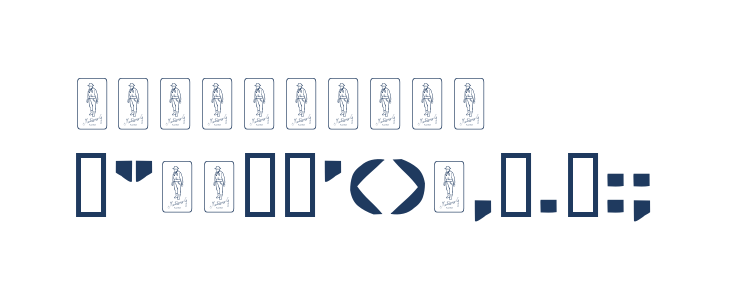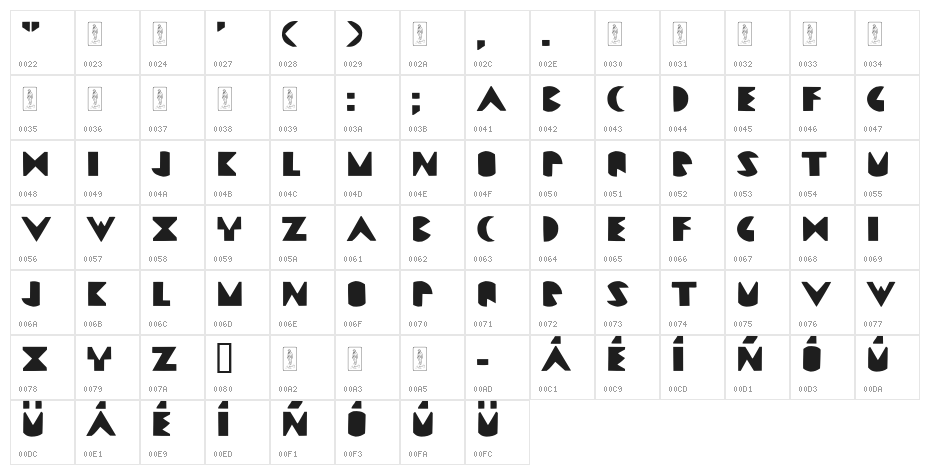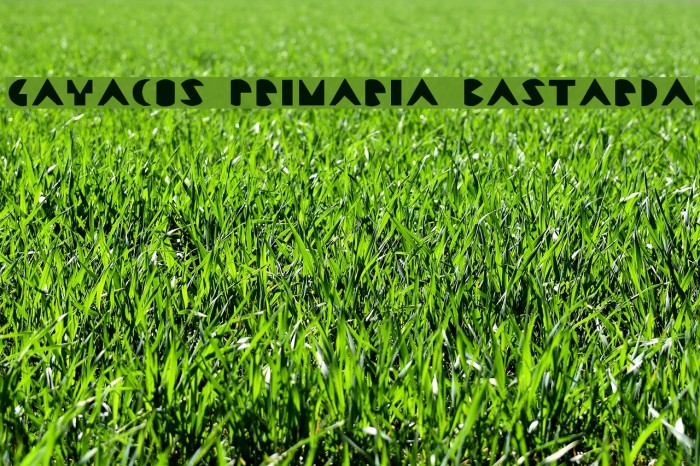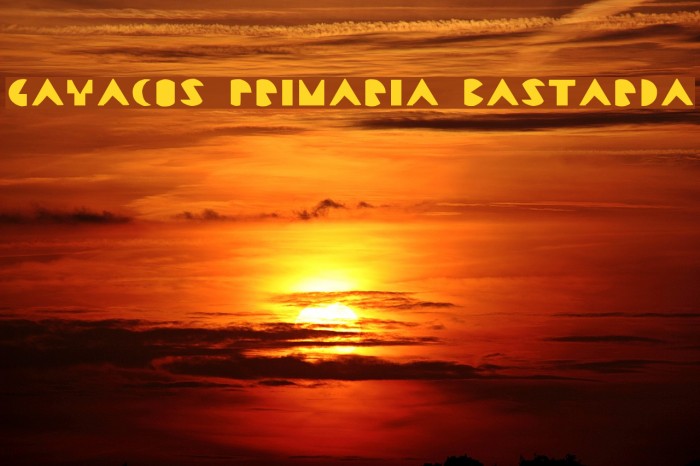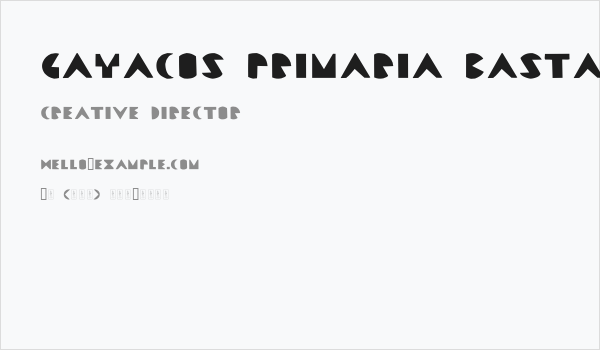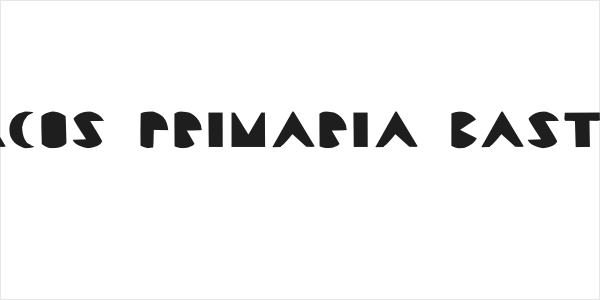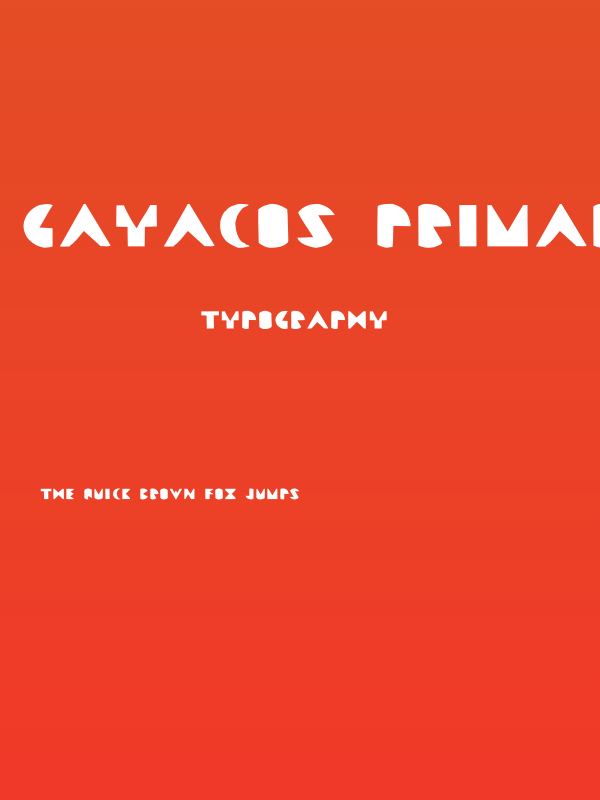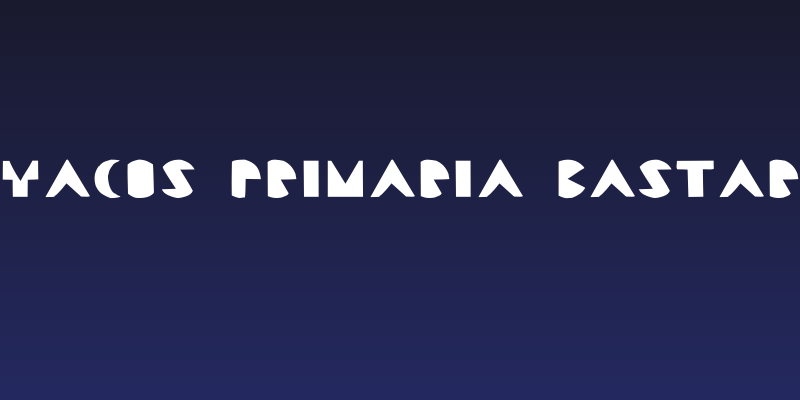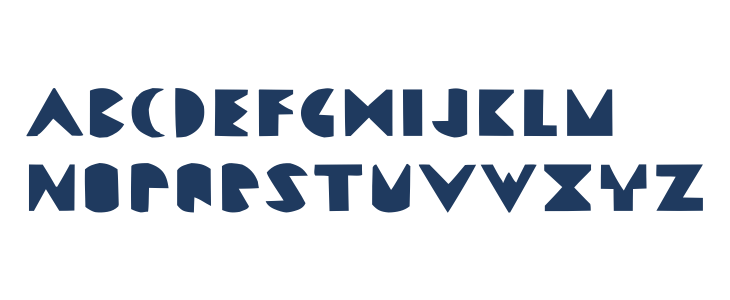
Gayacos Primaria Bastarda Font
Gayacos Primaria Bastarda Description
This font features a bold, geometric style with sharp angles and a strong presence. The uppercase letters are characterized by their wide, triangular shapes, giving them a futuristic and edgy appearance. The lowercase letters maintain the same geometric theme, providing a cohesive look across the typeface. The numbers and special characters follow suit, with consistent angular designs that enhance the overall aesthetic. This font is highly decorative, making it suitable for eye-catching designs that require a modern and unconventional touch.
| Proposed Projects | Ideal for branding, posters, album covers, and any project needing a modern, standout typeface. |